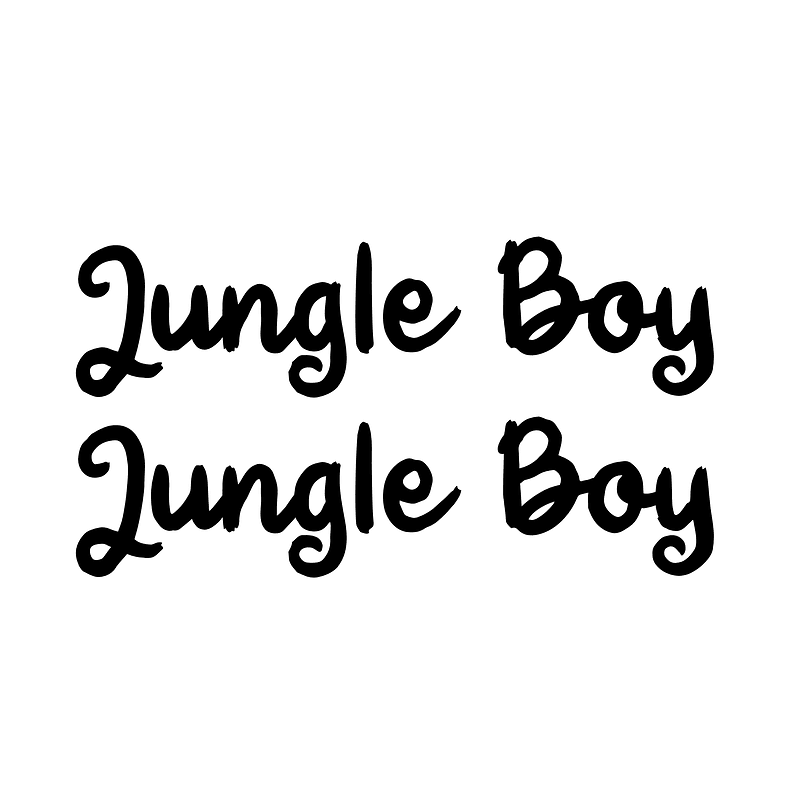
Jungle Boys Font . Web jungle boy font download is available free from fontget. Released in 2019 by cove703 and licensed for personal and.
Jungle Boys Font - Unearth a unique and exotic selection of typefaces perfect for adding a. Web download jungle boy font for free! Web jungle boy font | dafont.com english français español deutsch italiano português. Released in 2019 by cove703 and licensed for personal and. Jungle boy is a script type font that can be used on any device such.
Jungle Boys Font - Web download and install the jungle boy font for free from ffonts.net. Jungle boy is a script type font that can be used on any device such. Web jungle boy font download is available free from fontget. Released in 2019 by cove703 and licensed for personal and. Web jungle boy font | dafont.com english français español deutsch italiano português.
Jungle Boys Font - Web jungle boy font download is available free from fontget. ️ this font has been downloaded 200+ times. Released in 2019 by cove703 and licensed for personal and. Web discover the wild and creative beauty of free jungle fonts. Jungle boy is a script type font that can be used on any device such.
Jungle Boys Font - Web discover the wild and creative beauty of free jungle fonts. Web jungle boy font download is available free from fontget. ️ this font has been downloaded 200+ times. Jungle boy is a script type font that can be used on any device such. Released in 2019 by cove703 and licensed for personal and.
Jungle Boys Font - Released in 2019 by cove703 and licensed for personal and. Web discover the wild and creative beauty of free jungle fonts. Web jungle boy font download is available free from fontget. Web download jungle boy font for free! Jungle boy is a script type font that can be used on any device such.
Jungle Boys Font - Web jungle boy font | dafont.com english français español deutsch italiano português. Web jungle boy font download is available free from fontget. Unearth a unique and exotic selection of typefaces perfect for adding a. Web download jungle boy font for free! Web free download of jungle boy font family with 2 styles.
Jungle Boys Font - Released in 2019 by cove703 and licensed for personal and. Web jungle boy font download is available free from fontget. Web free download of jungle boy font family with 2 styles. Unearth a unique and exotic selection of typefaces perfect for adding a. Web jungle boy font | dafont.com english français español deutsch italiano português.
Jungle Boys Font - Jungle boy is a script type font that can be used on any device such. Released in 2019 by cove703 and licensed for personal and. Web download and install the jungle boy font for free from ffonts.net. Web discover the wild and creative beauty of free jungle fonts. Web jungle boy font | dafont.com english français español deutsch italiano português.
Jungle Boys Font - Web download and install the jungle boy font for free from ffonts.net. Web download jungle boy font for free! Unearth a unique and exotic selection of typefaces perfect for adding a. Web jungle boy font | dafont.com english français español deutsch italiano português. Jungle boy is a script type font that can be used on any device such.
Jungle Boys Font - Unearth a unique and exotic selection of typefaces perfect for adding a. Web jungle boy font | dafont.com english français español deutsch italiano português. Web discover the wild and creative beauty of free jungle fonts. Jungle boy is a script type font that can be used on any device such. Web download jungle boy font for free!
Jungle Boys Font - Web discover the wild and creative beauty of free jungle fonts. ️ this font has been downloaded 200+ times. Web download and install the jungle boy font for free from ffonts.net. Jungle boy is a script type font that can be used on any device such. Released in 2019 by cove703 and licensed for personal and.
Jungle Boys Font - Released in 2019 by cove703 and licensed for personal and. Web jungle boy font download is available free from fontget. Web free download of jungle boy font family with 2 styles. Web download and install the jungle boy font for free from ffonts.net. Web discover the wild and creative beauty of free jungle fonts.